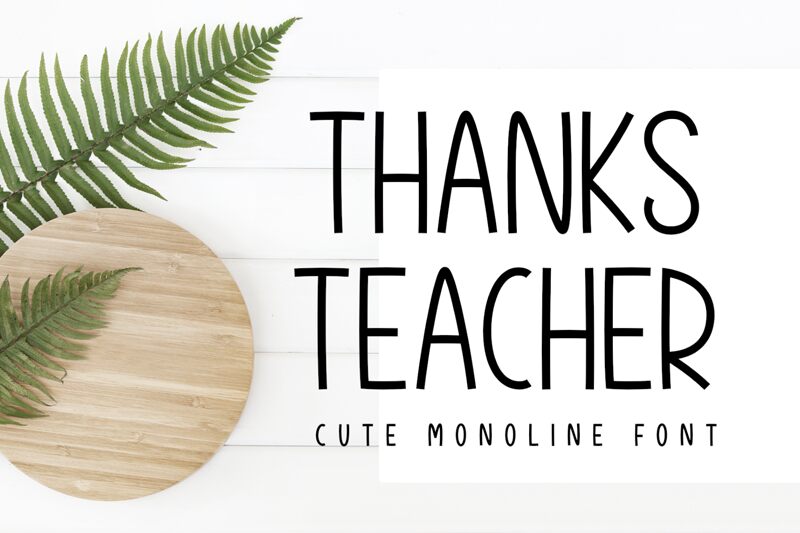
Thanks Teacher, a distinctive display font by AV Type, stands out with its semi-light weight and condensed width. Its sleek lines and modern structure give it an aesthetic appeal that is at once professional and personable. The style of Thanks Teacher makes it an excellent choice for projects that require a touch of elegance without sacrificing readability.
This font's unique character shapes and proportions lend themselves well to creative endeavors such as branding, editorial design, and sophisticated advertising campaigns. Its clear legibility despite the condensed form factor ensures that messages are conveyed with impact and clarity.
Thanks Teacher is particularly suited for contexts where space is at a premium but a strong visual statement is essential-think business cards, posters, or any platform where you want your words to engage the audience instantly. With its contemporary vibe and stylish appearance, this font by AV Type promises to elevate your project's design aesthetic effortlessly.